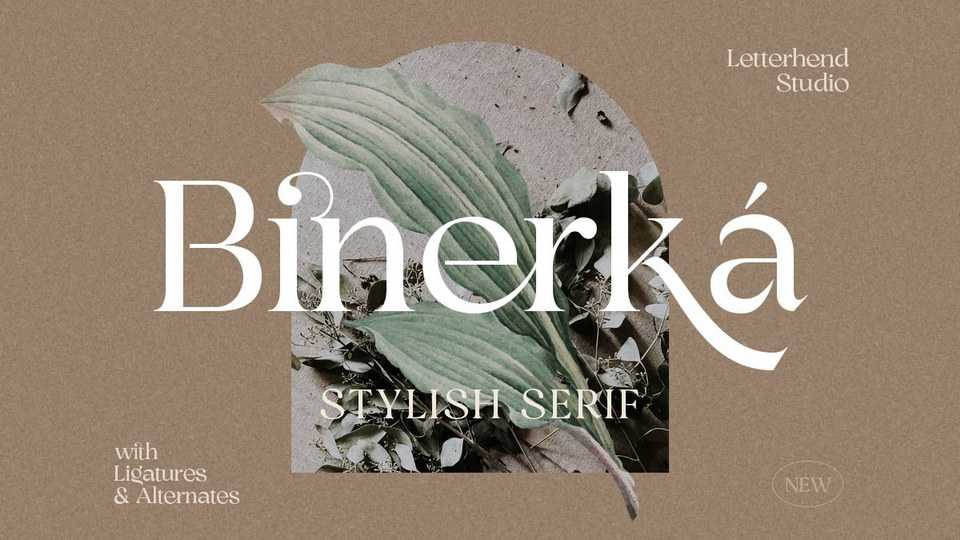
Download Binerka font, a stylish serif typeface with a vintage aesthetics. Binerka looks lovely on a variety of designs requiring a personalized style, such as wedding invitations, thank you cards, weddings, greeting cards, logos and so on.